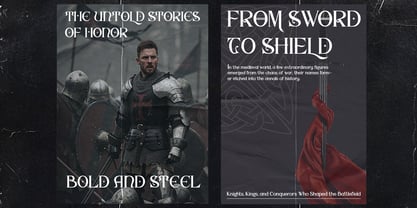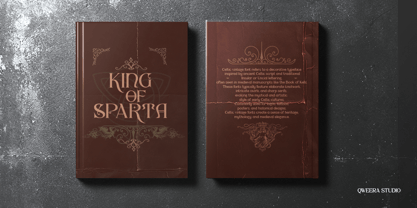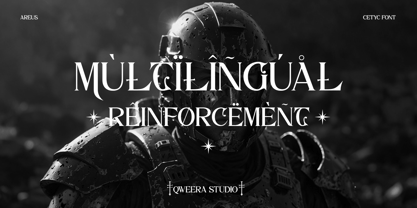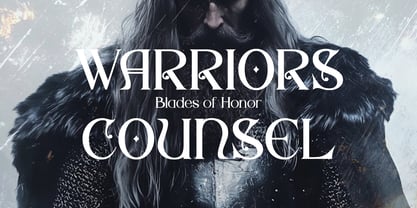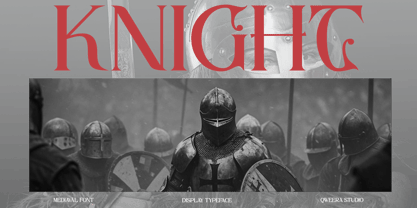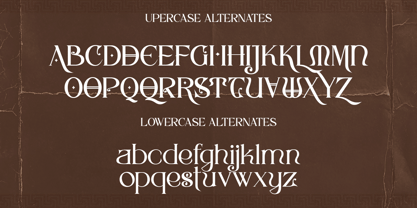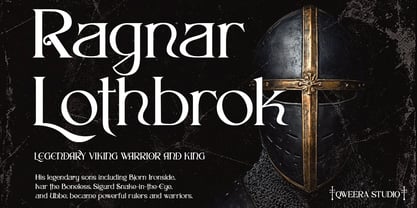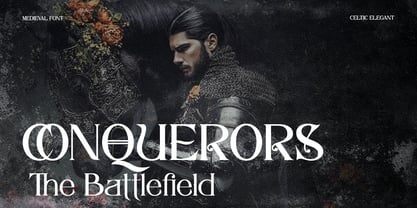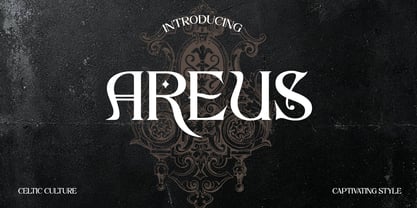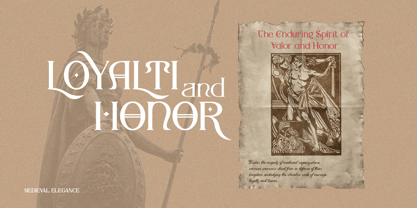
Areus
The Areus Font Family was designed by Idhham Cholid Rikzano Yahya and published by Qweera Studio. Areus contains 2 styles and family package options. More about this family
Areus – Celtic Vintage Display Serif Font for Timeless and Authentic Designs
Areus is more than just a font—it’s a journey into the rich heritage of Celtic design, blending vintage charm with modern versatility. With its intricate details, elegant serifs, and stylish alternates, Areus is the perfect choice for branding, logo design, packaging, posters, and more. Whether you’re crafting a vintage-inspired logo or designing a poster with a historical touch, this font ensures your work radiates authenticity and timeless elegance.
Where Celtic Heritage Meets Modern Design
Areus stands out with its unique blend of Celtic-inspired details and contemporary functionality. Its stylish alternates and ligatures add a touch of creativity and individuality, making it ideal for projects that demand a vintage yet modern aesthetic. From branding to packaging, Areus ensures your designs are both captivating and memorable.
Key Features
• Celtic Vintage Display Serif Design – Perfect for branding, logo design, packaging, and posters.
• Regular & Italic Versions – Versatile options for a variety of design needs.
• Stylish Alternates & Ligatures – Add a unique and creative touch to your designs.
• Intricate Celtic Details – Captures the essence of vintage charm and authenticity.
• Multilingual Support – Compatible with over 20 languages, including English, French, German, Spanish, and more.
Elevate Your Designs with Areus Areus isn’t just a font—it’s a tool to transform your creative projects into timeless, vintage-inspired masterpieces. Whether you’re designing for print, digital, or branding, this font ensures your work stands out with authenticity and elegance.